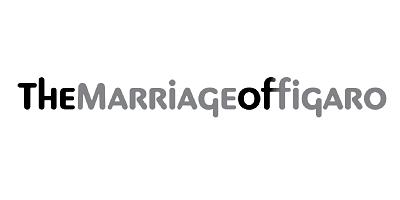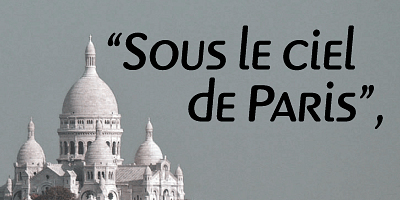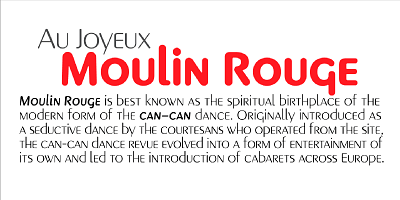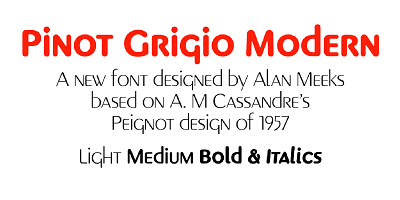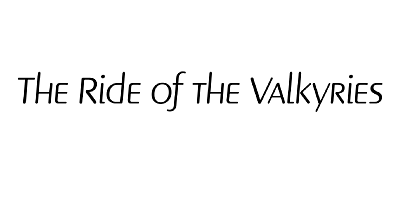
A modern update of the unique sans display font Peignot originally designed in 1937 by A. M. Cassandre. The font has been modernised by making all the terminals soft and making a larger x height and lessening the contrast between thick and thin.
Alan Meeks